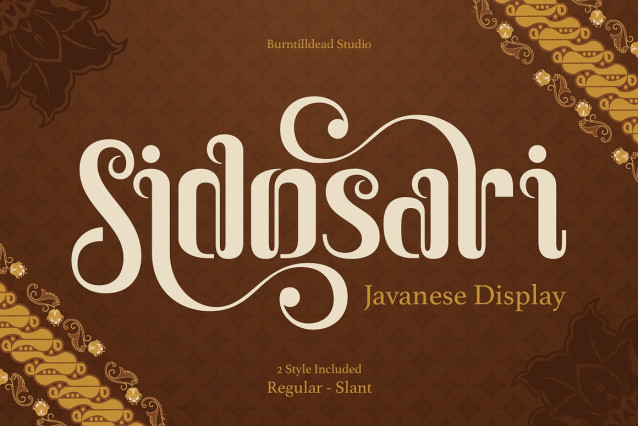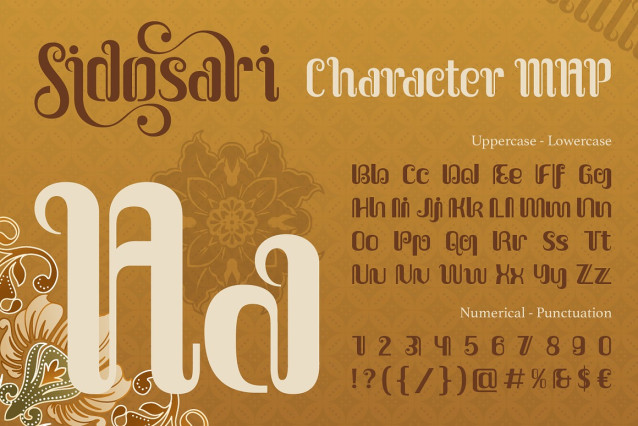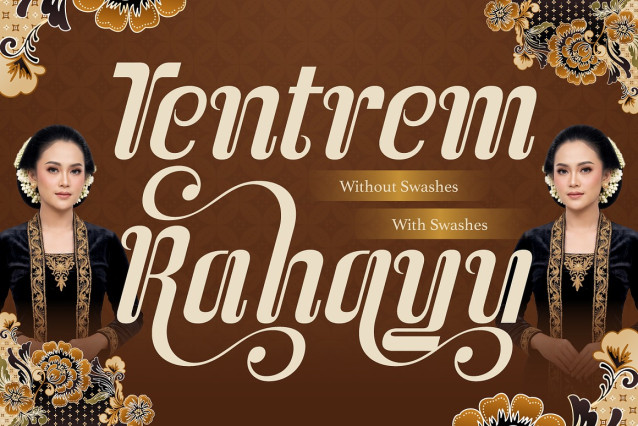
Sidosari Font
Sidosari is a bold Javanese-inspired display font featuring elegant swash details and decorative curves that bring a rich, traditional Indonesian character to any design. With its flowing ligatures and ornamental flourishes, Sidosari captures the timeless beauty of Javanese script culture while remaining fully legible and versatile for modern branding needs.
Perfect for:
– Traditional & heritage branding (batik, food & beverage, cultural products)
– Restaurant and warung logos or menu headers
– Wedding invitations with an ethnic/traditional touch
– Product packaging with a vintage-cultural aesthetic
– Social media graphics and quote designs
– Apparel and merchandise prints
– Book covers with a Javanese/Indonesian theme